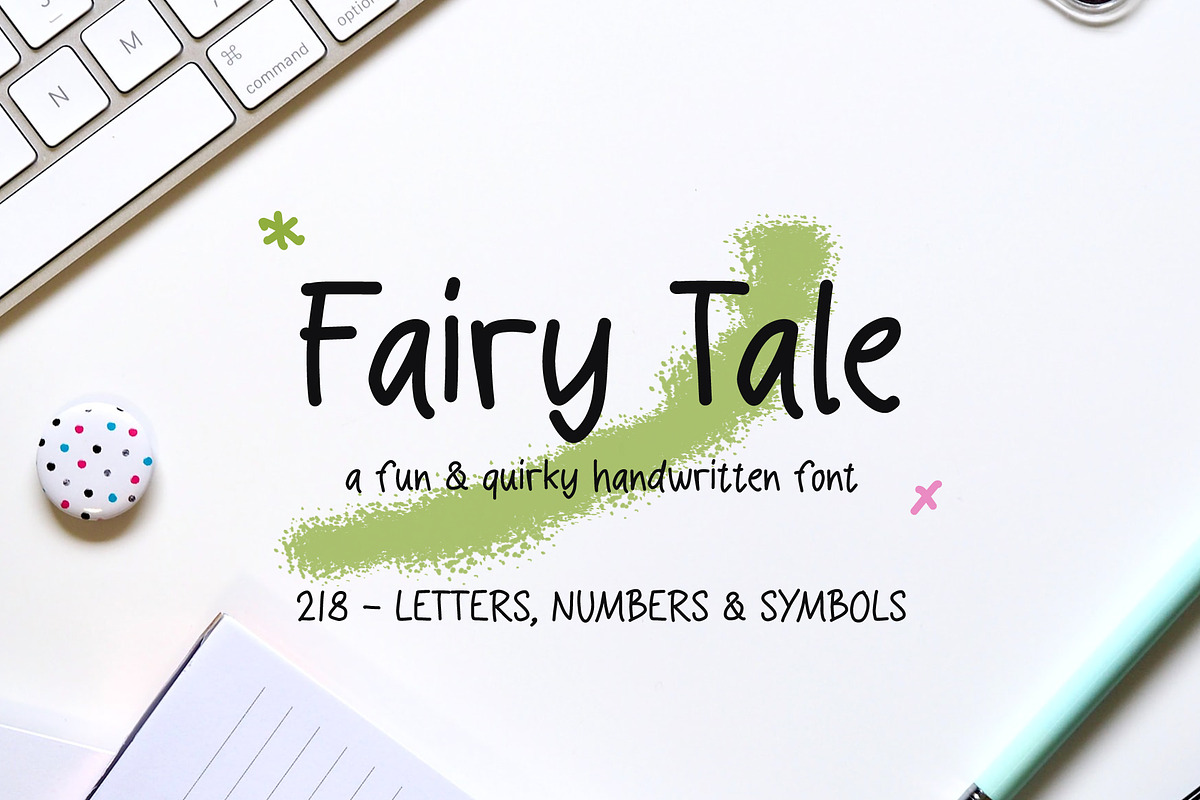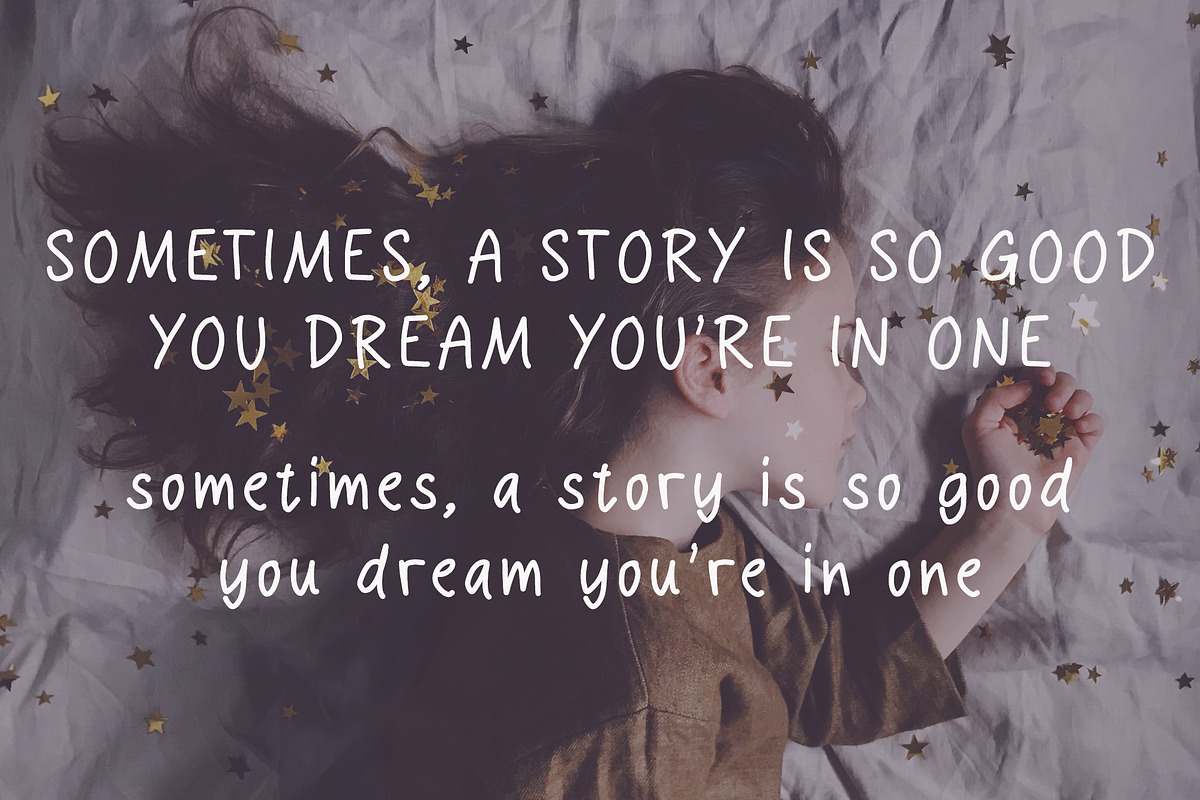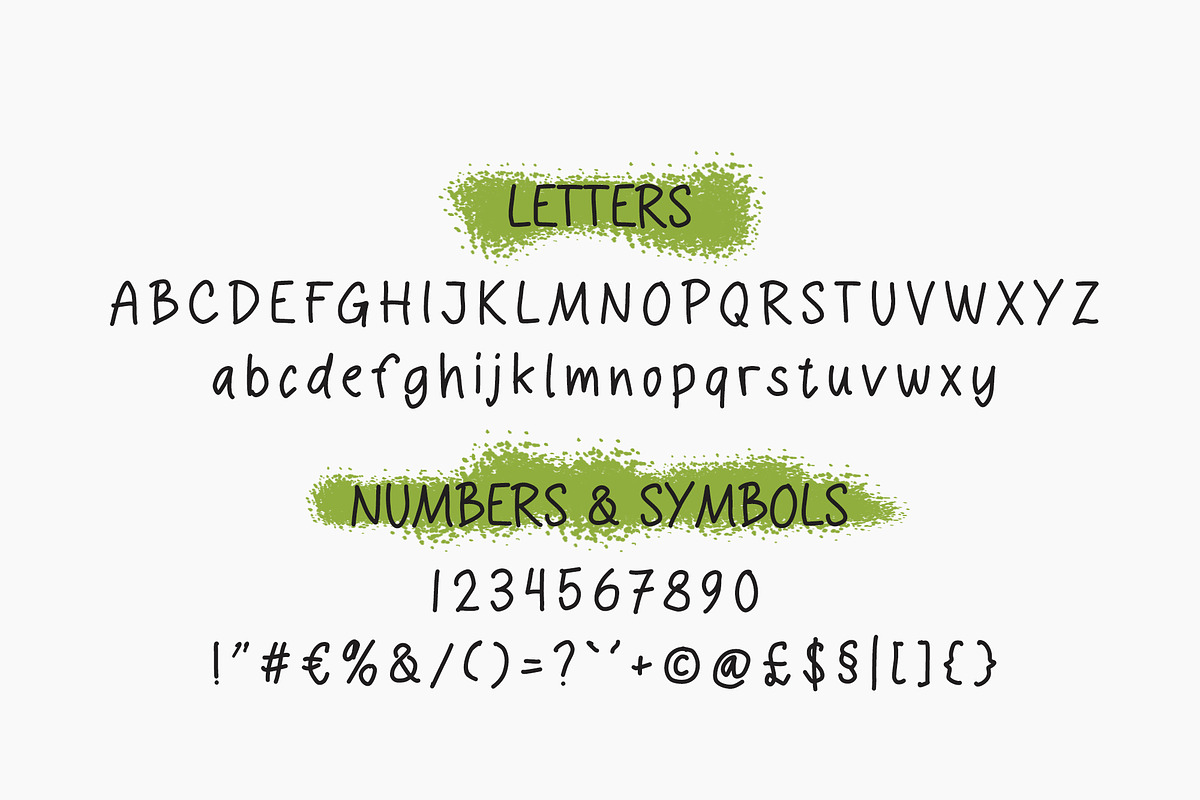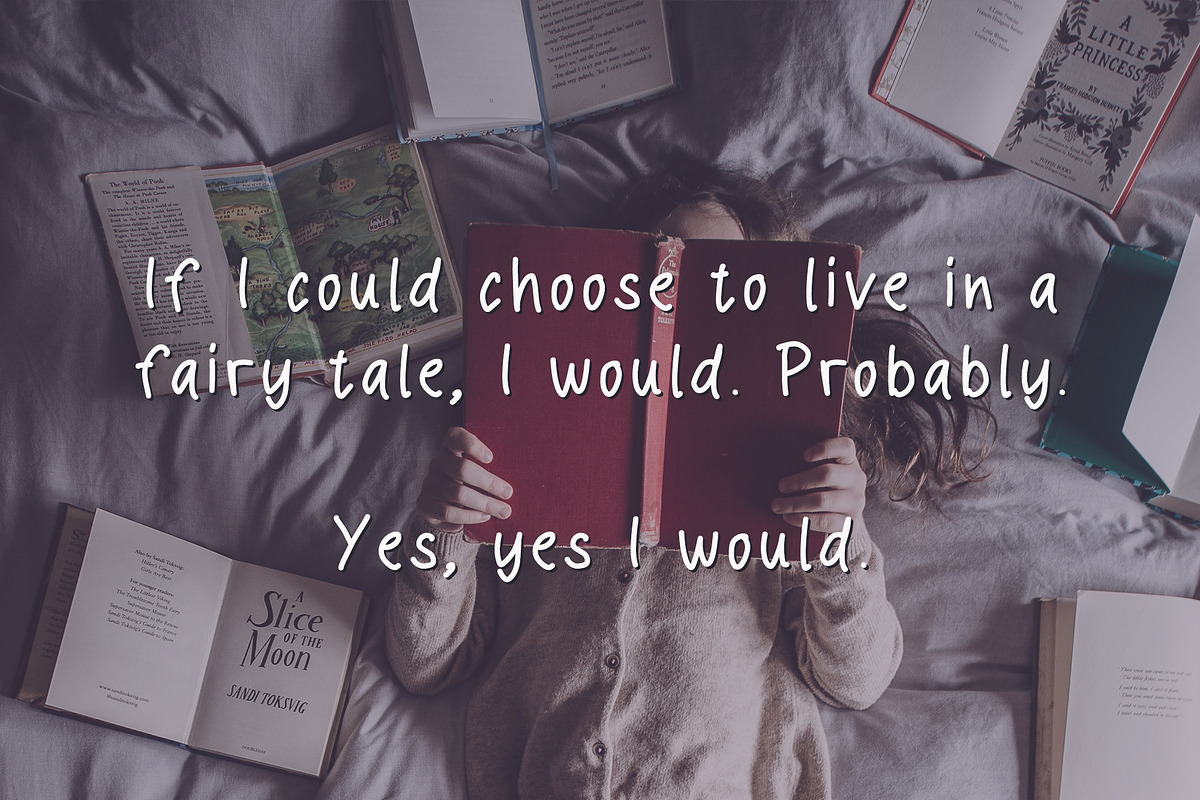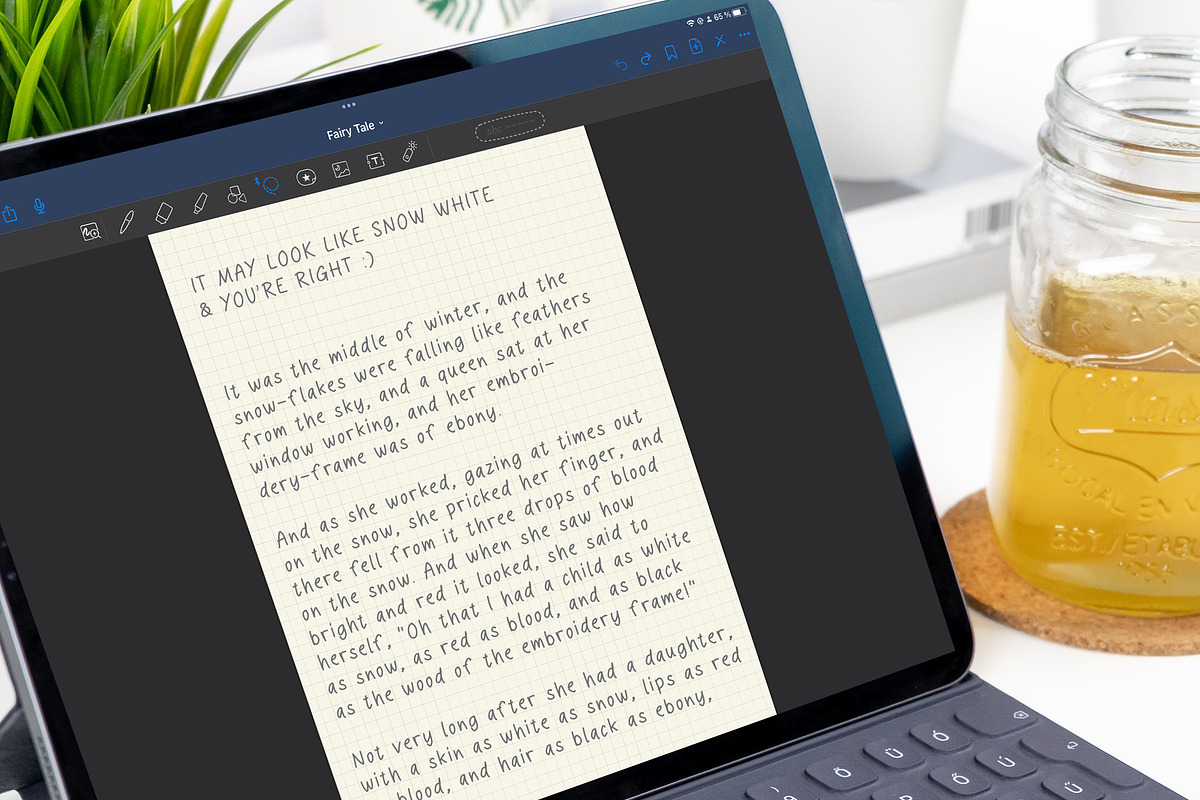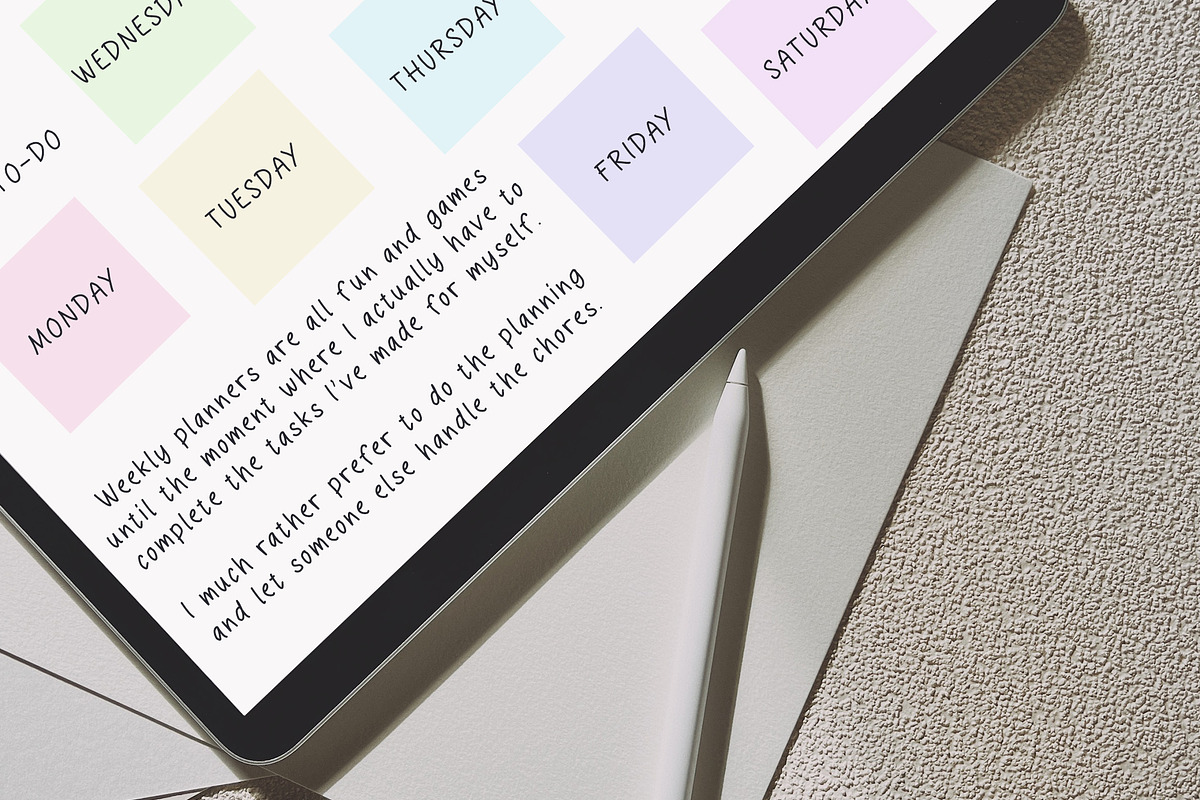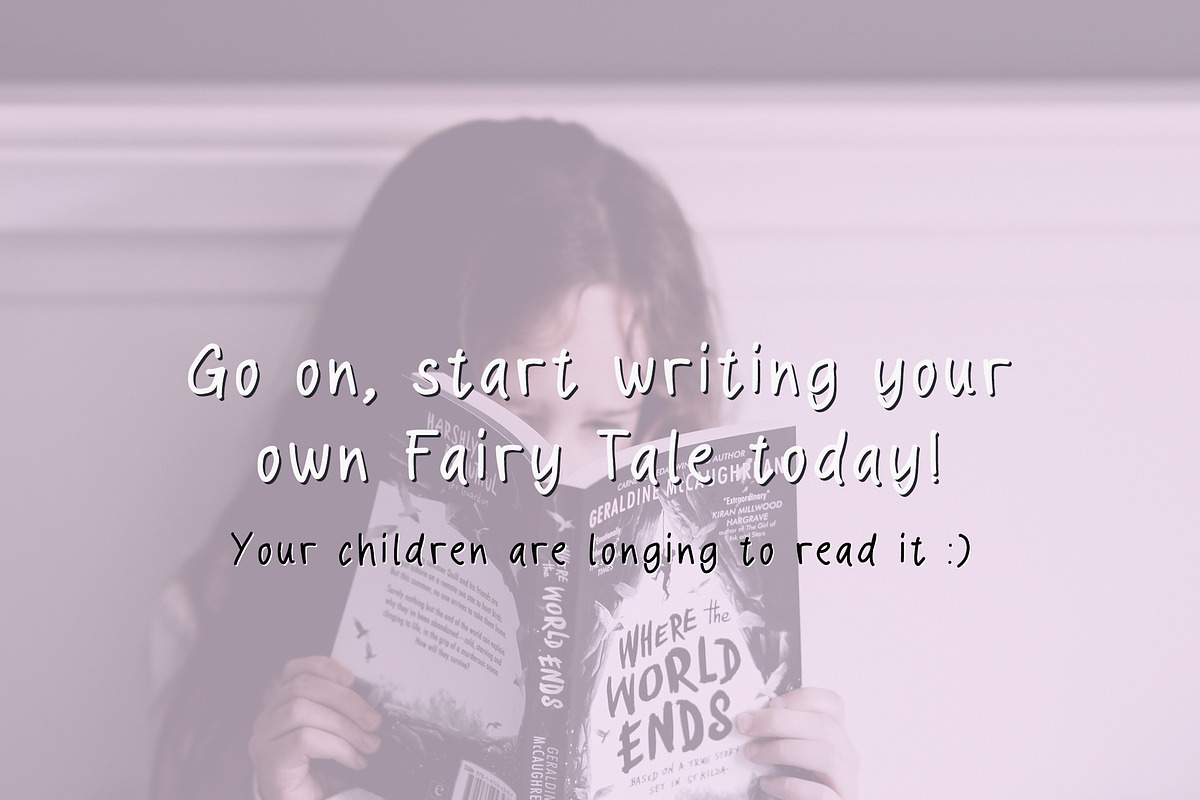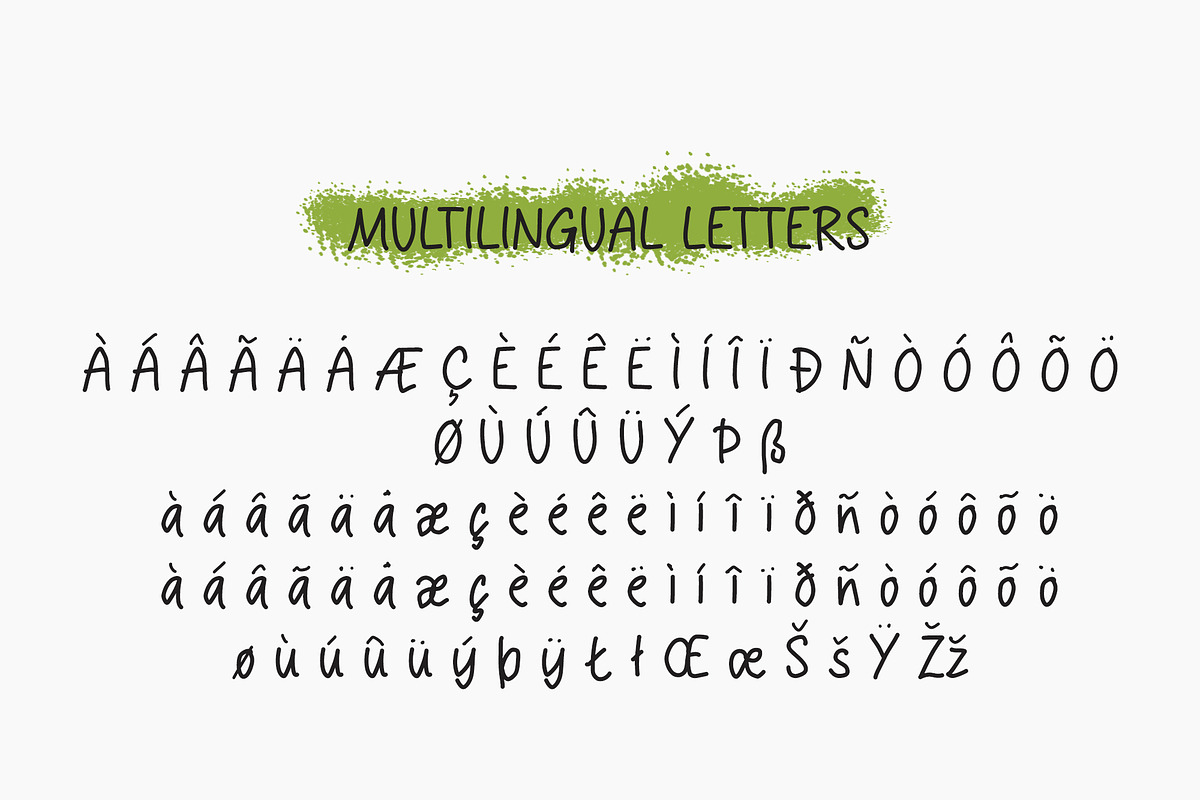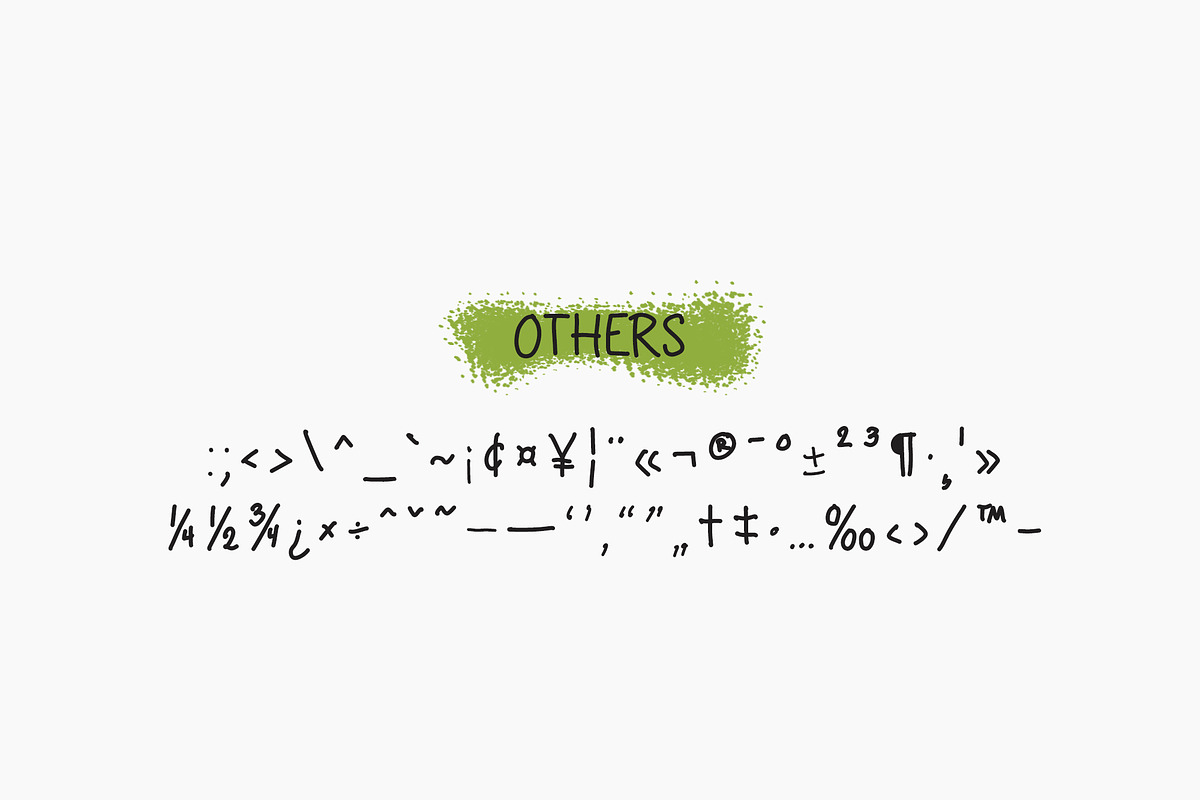
Fairy Tale - Handwritten Whimsy Font
Looking for a playful and unique font for your designs? Our Handwritten Sans-serif Font Fairy Tale is just what you need!
Featuring fun and quirky lettering, this font is perfect for adding a touch of whimsy to invitations, greeting cards, posters, and digital planners. The sans-serif design gives it a modern twist, while the handwritten style adds a personal touch.
Use it for branding, logos, social media graphics, and more. Try it out today and see how our fun and playful font can take your designs to the next level!
218 Handwritten Letters, Numbers & Symbols including: å ä ö ø æ œ é † µ ü ı ß ∂ ƒ ¸ ˛ ÷ ç ‹ › ‘ ’ ‚ … – ’ * - SEE ALL IN THE PREVIEW IMAGES